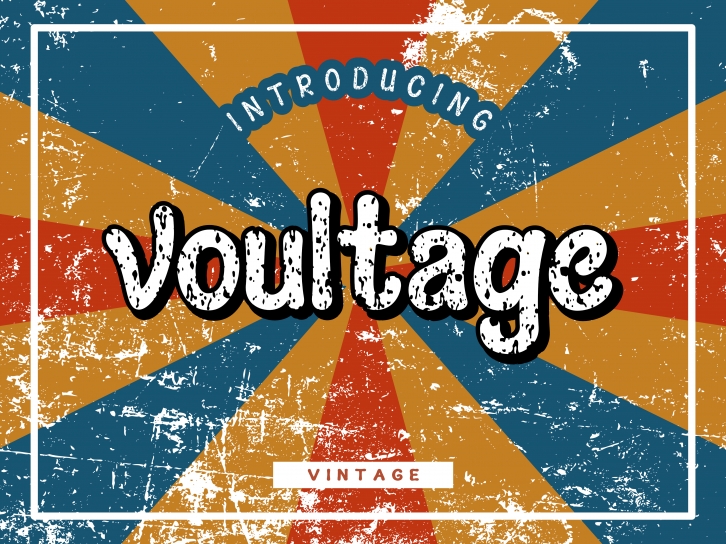
Voultage is retro styled display font. This font is imposing and features uniquely shaped letters, and as a result, it will easily match a wide range of creations that require a distinct touch.Â